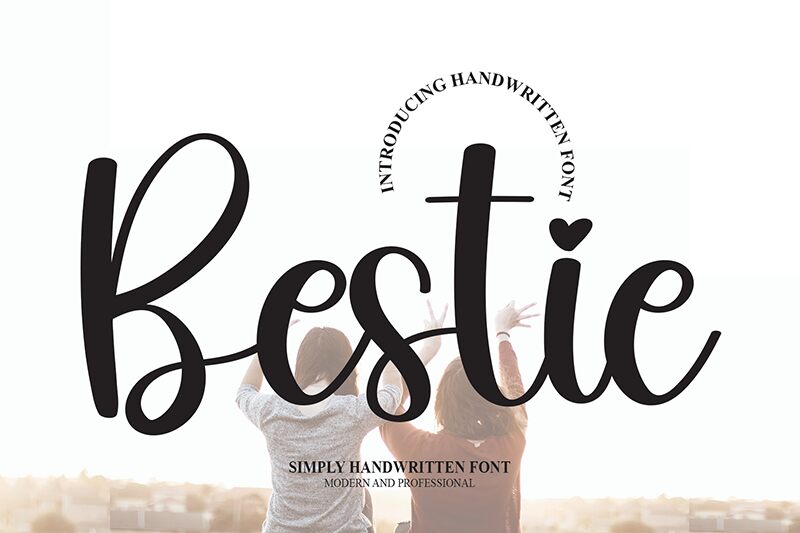
Bestie
Bestie, a charming handwritten font by share font, brings a touch of elegance and playfulness to any project. Its flowing lines and authentic strokes make it perfect for wedding invitations, greeting cards, and feminine branding designs. With its semi-bold weight and moderate width, this versatile typeface is also suitable for blog headers, social media graphics, and children's book covers. Whether you're crafting a romantic love letter or designing a whimsical logo, Bestie adds a delightful personal touch that will captivate your audience. Let the warmth of Bestie elevate your creative endeavors to new heights.